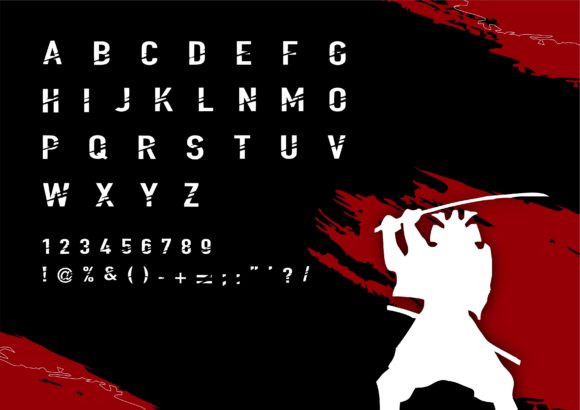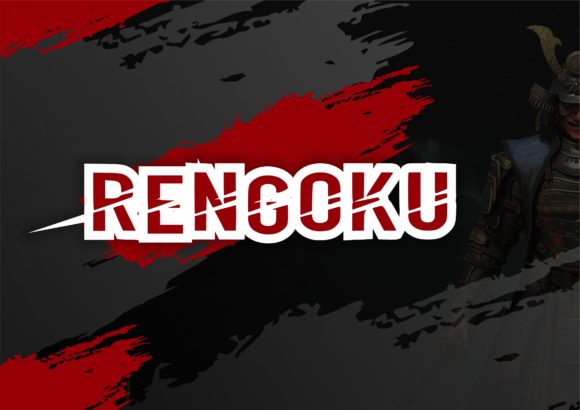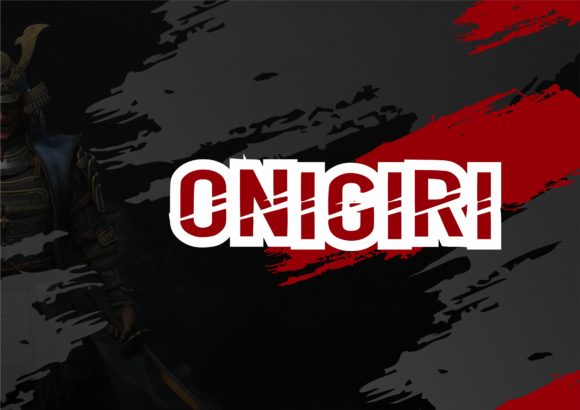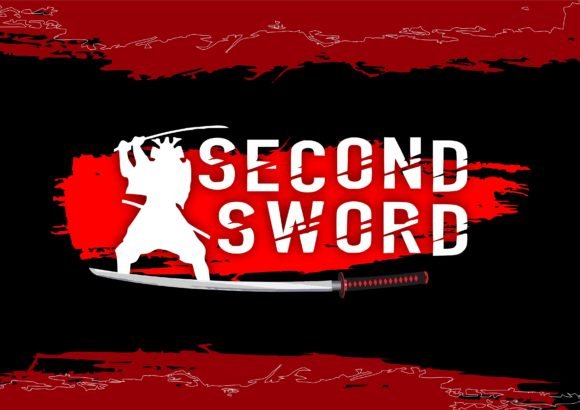
Introduction to Second Sword Font
Second Sword is a Samurai-themed display font featuring high weight, offering support for Sword katana characters.
Key Features of Second Sword Font
Why Choose Second Sword Font?